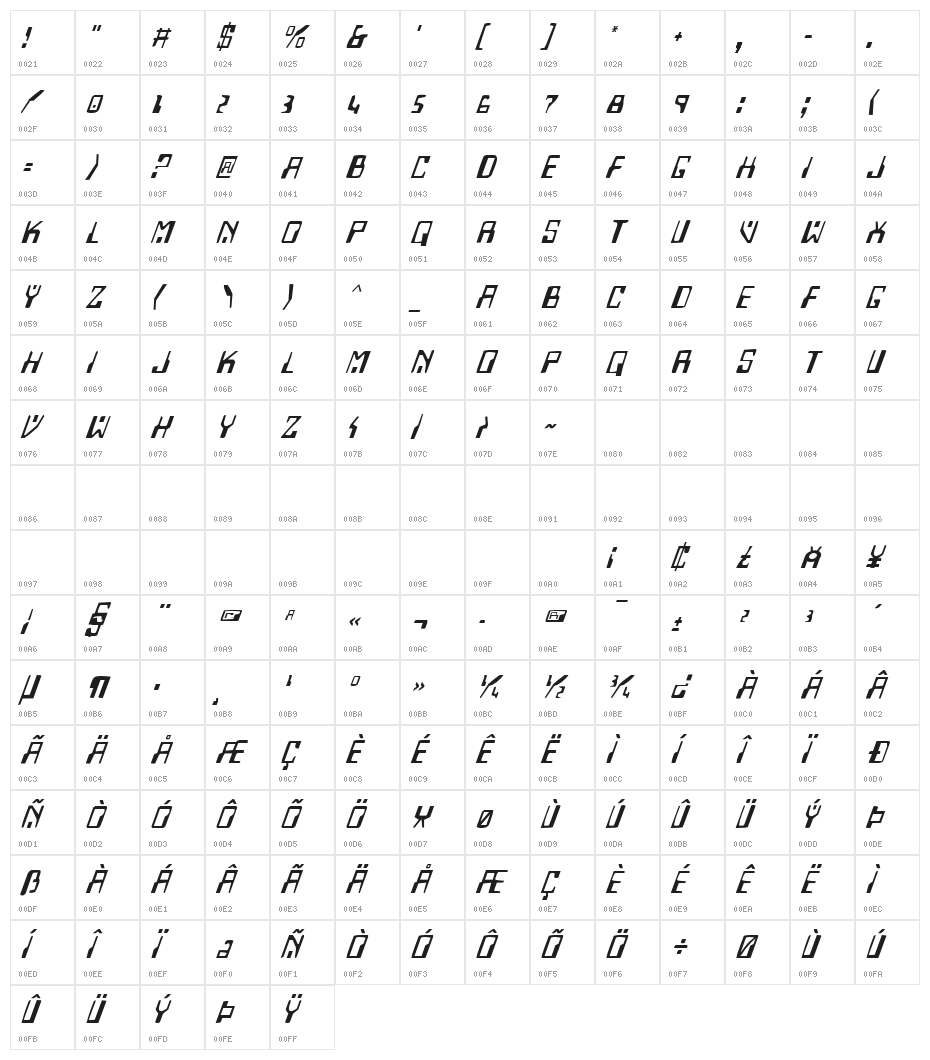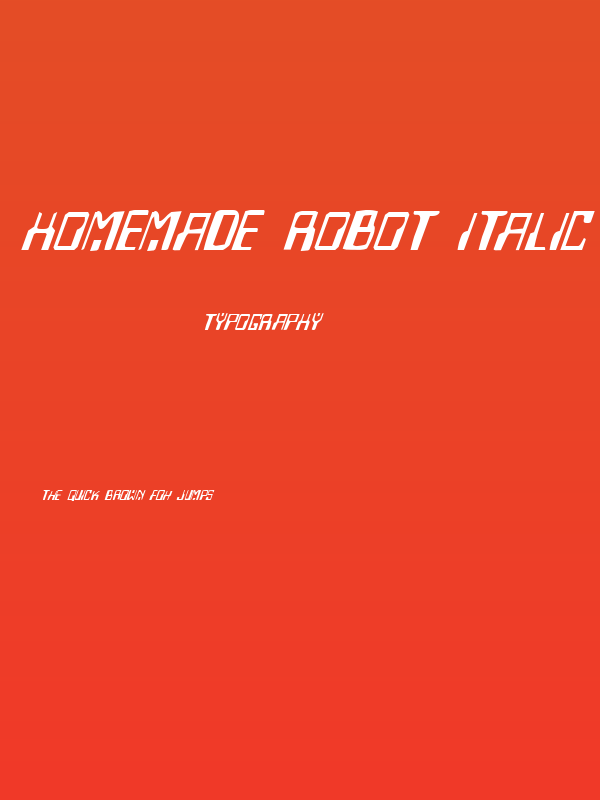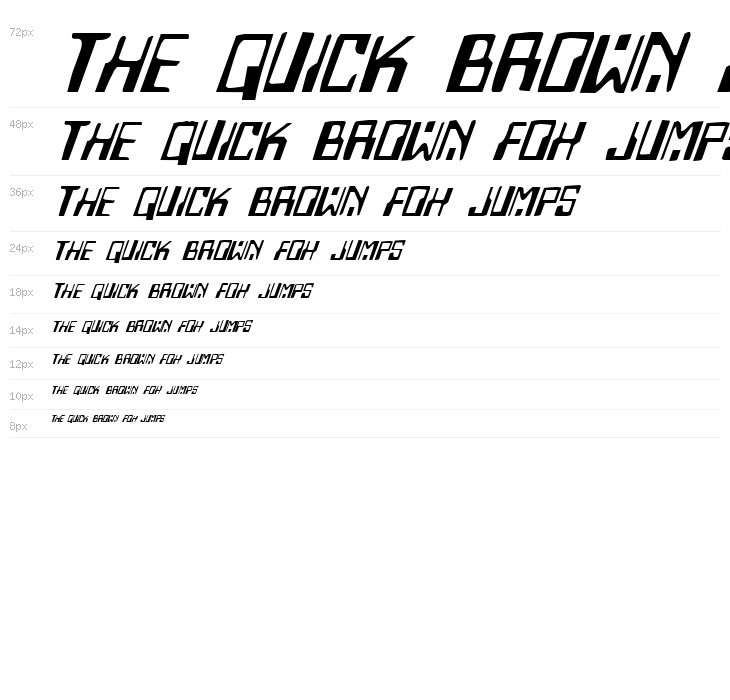
Homemade Robot Italic Font
Homemade Robot Italic Description
This font features a futuristic and angular design, characterized by its sharp edges and italicized form. The letters are slanted, giving a sense of motion and dynamism. The uppercase and lowercase letters share a consistent geometric style, with a distinct robotic feel. The numbers and special characters maintain this aesthetic, making the font suitable for modern and tech-oriented designs. The strokes are bold, with a medium contrast between thick and thin lines, enhancing readability while maintaining a unique appearance.
| Proposed Projects | Ideal for technology branding, sci-fi posters, video game titles, and modern logos. |